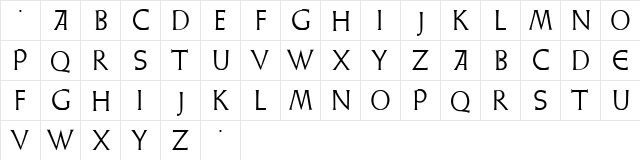
Weiss Lapidar Regular
| Designer | Dieter Steffmann |
Design Context for Weiss Lapidar Typeface
Weiss Lapidar offers clean, dependable letterforms without strong stylistic allegiance, making it a practical choice for designers who need flexibility.